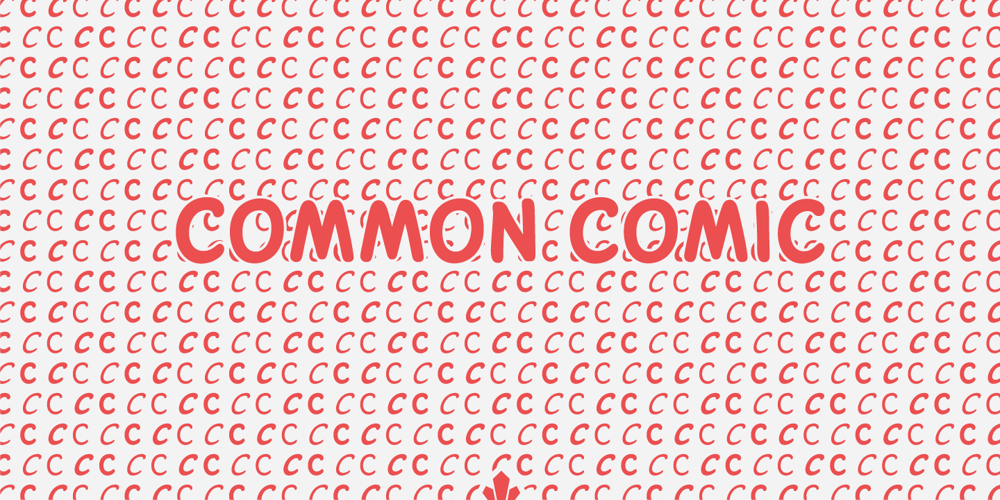
Common Comic
Common Comic font
Common Comic Font Family was designed by Patrick Griffin and published by Canada Type. Common Comic contains 8 styles and family package options. The Common Comic volume is the fifth in Canada Type’s ever-growing series of comic book fonts, which really is the expression of Patrick Griffin’s continued obsession with the genre. Common Comic joins Collector Comic, Captain Comic, Caper Comic, and Classic Comic, all popular fonts in their own right. This set was made for information-heavy comic balloon text use. The forms were constrcuted with a slightly condensed individual build, without sacrificing the clarity, legibility and scalability of the overall setting. Meticulously scrutinized and tested outlines expand the versatility of this set to also cover non-comic text and display applications. Common Comic is two very interchangeable sets of caps are available in regular and bold weights, with italic counterparts, all in one style-linked and affordable package. Each of the four fonts come with a glyphset of over 370 characters, quite a few alternates, and support for the majority of Latin-based languages.